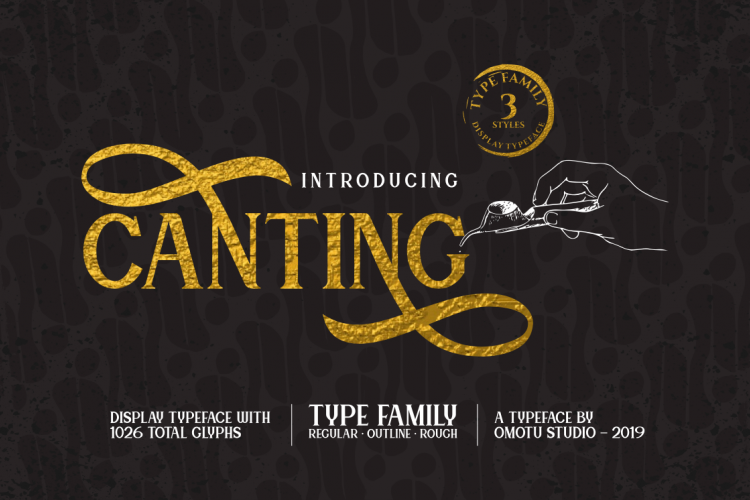
Canting Display Typeface
This is a display typeface with 1026 total glyphs. It’s perfect for you to give your design a vintage touch. This is an original vintage font, perfect for give your design an authentic touch. Introducing Canting Font. It is design and shared by Omotu. Canting Display Typeface is a decorative serif font. It perfectly represents vintage esthetics in a modern and minimalist way. The font includes special uppercase letters and alternate characters. The font is perfect for elegant logo design, product packaging, quotes, poster design, brand identity, lettering, and many more.